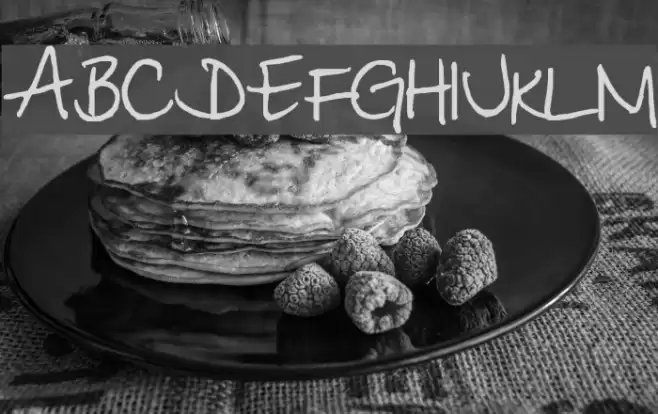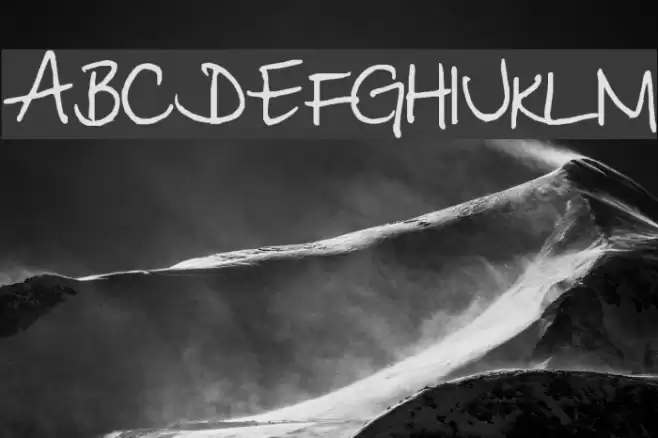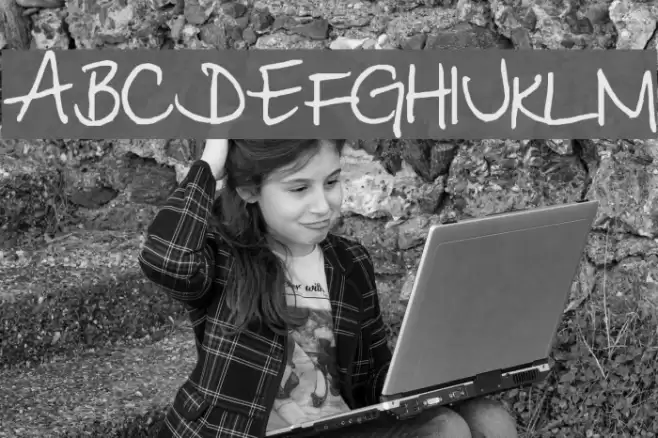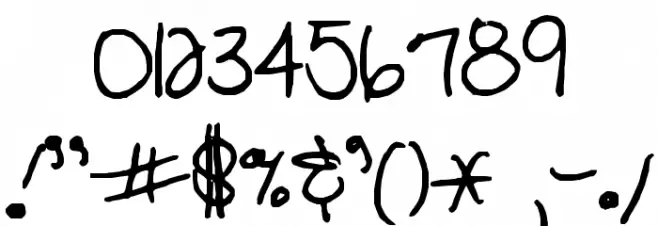
Denasprint Font
Denasprint Description
This font exhibits a playful and casual handwritten style, characterized by its irregular and organic letterforms. The strokes are uneven, giving it a dynamic and lively appearance. The uppercase and lowercase letters maintain a consistent flow, with rounded edges and a slightly tilted axis, enhancing its informal look. The numerals and special characters follow the same whimsical design, making it suitable for creative and informal projects. The overall impression is friendly and approachable, perfect for conveying a personal touch.
A playful, casual handwritten font with irregular, dynamic strokes from Uncategorized fonts.
- Proposed Projects: Ideal for greeting cards, children's books, personal blogs, and informal branding.
- Overall Style: Casual, Playful
- Use Case: Headlines, Informal text, Creative projects